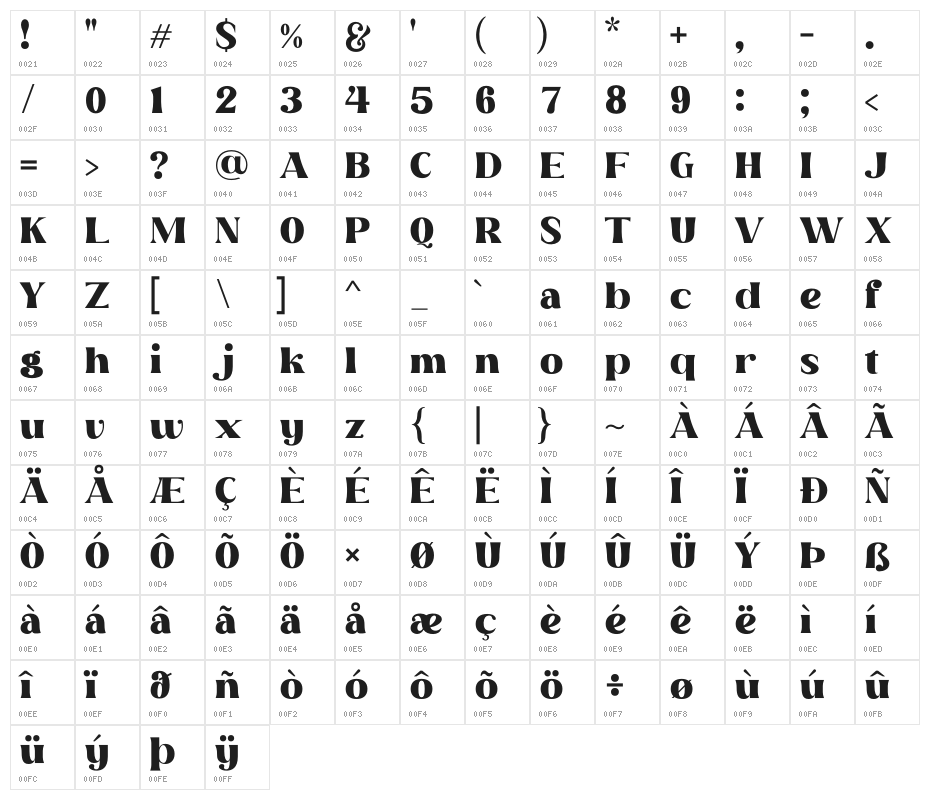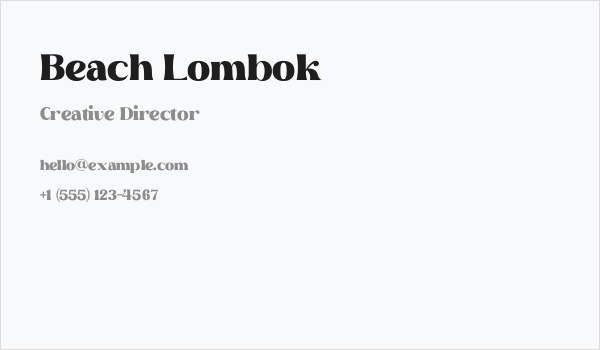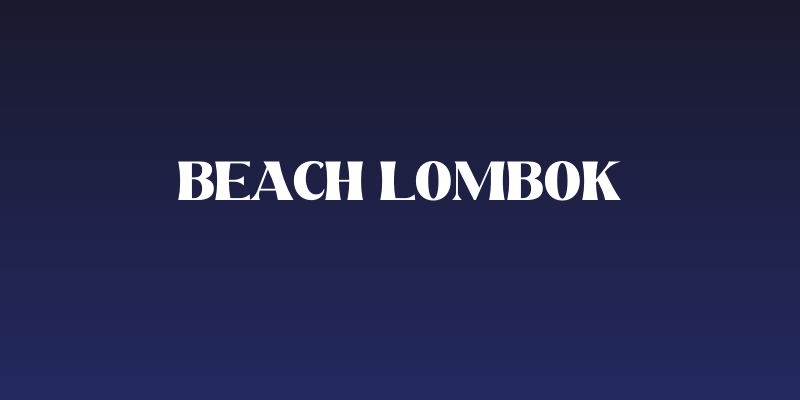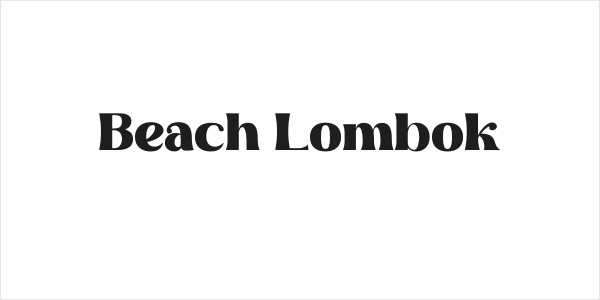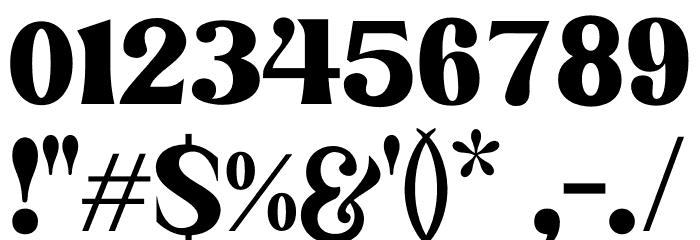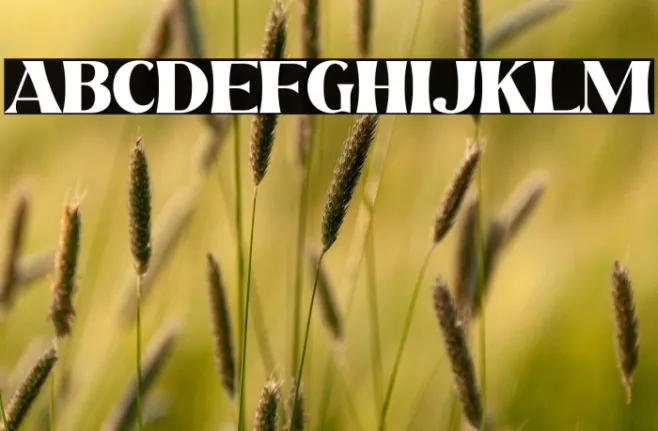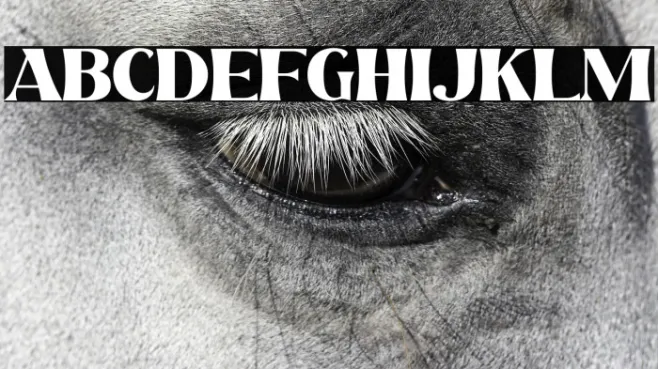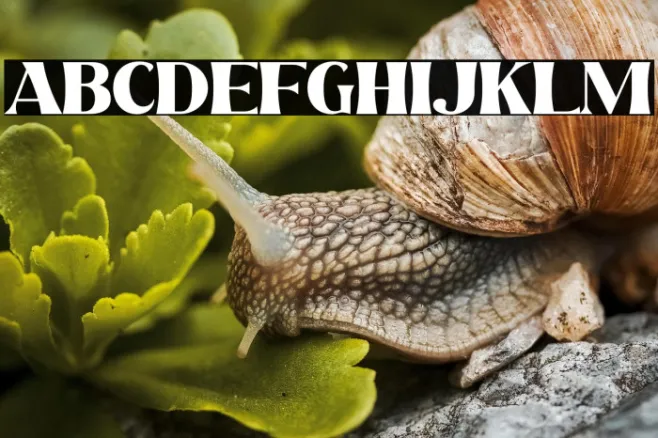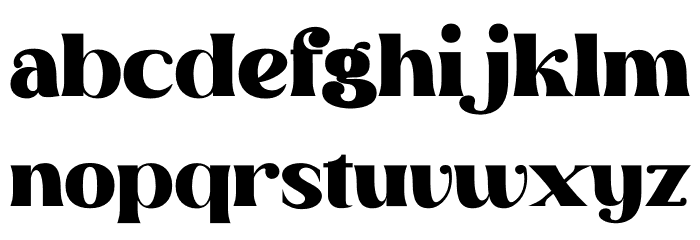
Beach Lombok Font
Beach Lombok Description
This font features a bold and dynamic design with high contrast between thick and thin strokes, giving it a striking and impactful appearance. The uppercase letters are robust and commanding, while the lowercase letters maintain a playful yet sophisticated style. The numerals are equally bold, ensuring they stand out in any context. Special characters are designed with flair, adding to the font's overall decorative appeal. Its unique style makes it suitable for eye-catching designs.
| Proposed Projects | Ideal for branding, poster design, headlines, and any project requiring a bold statement. |